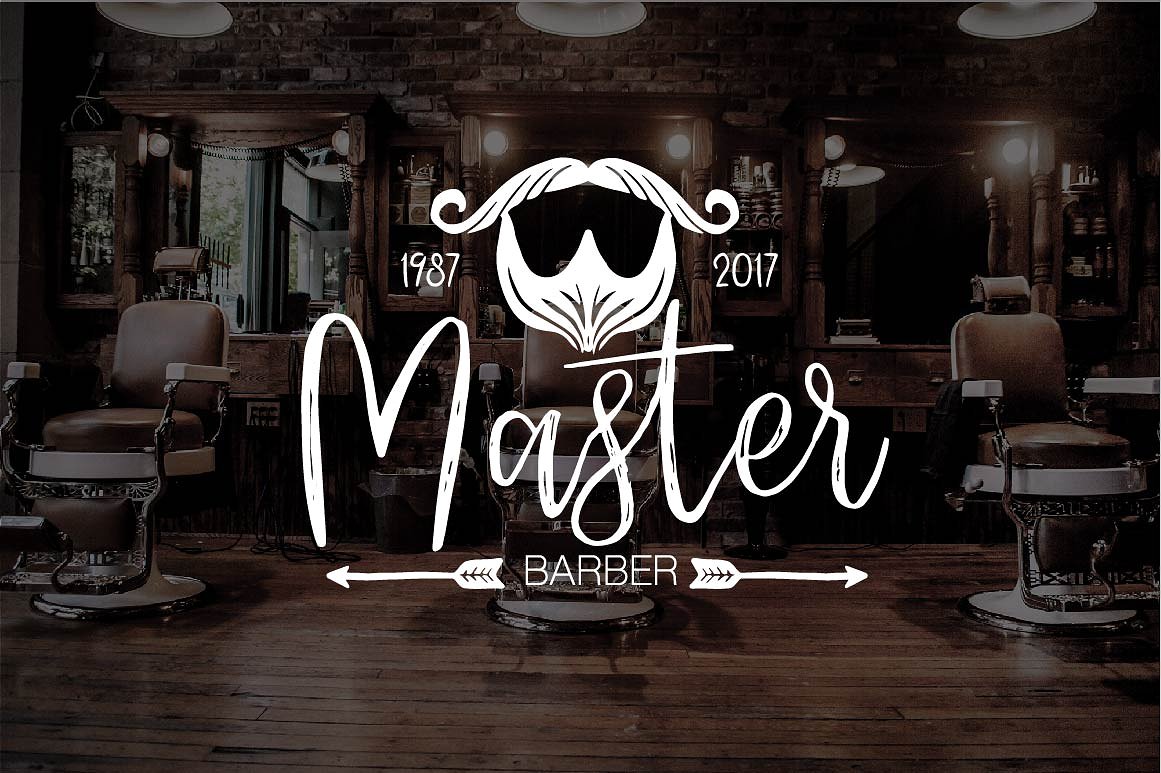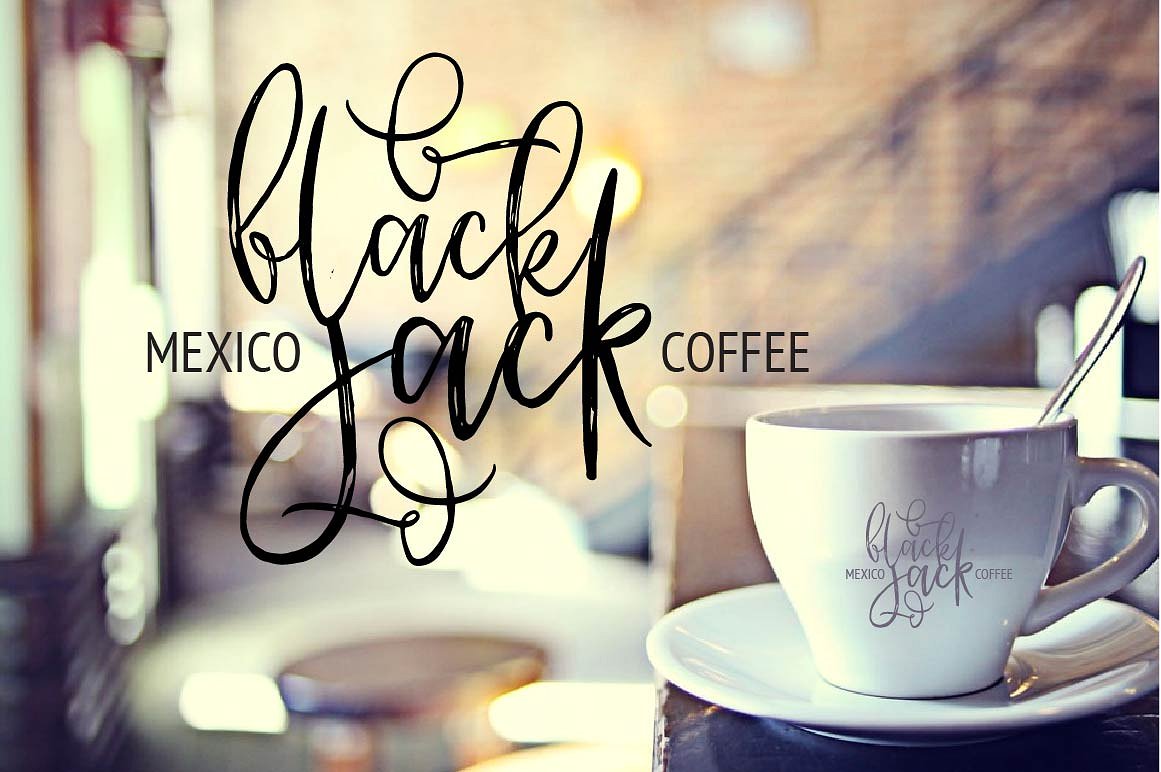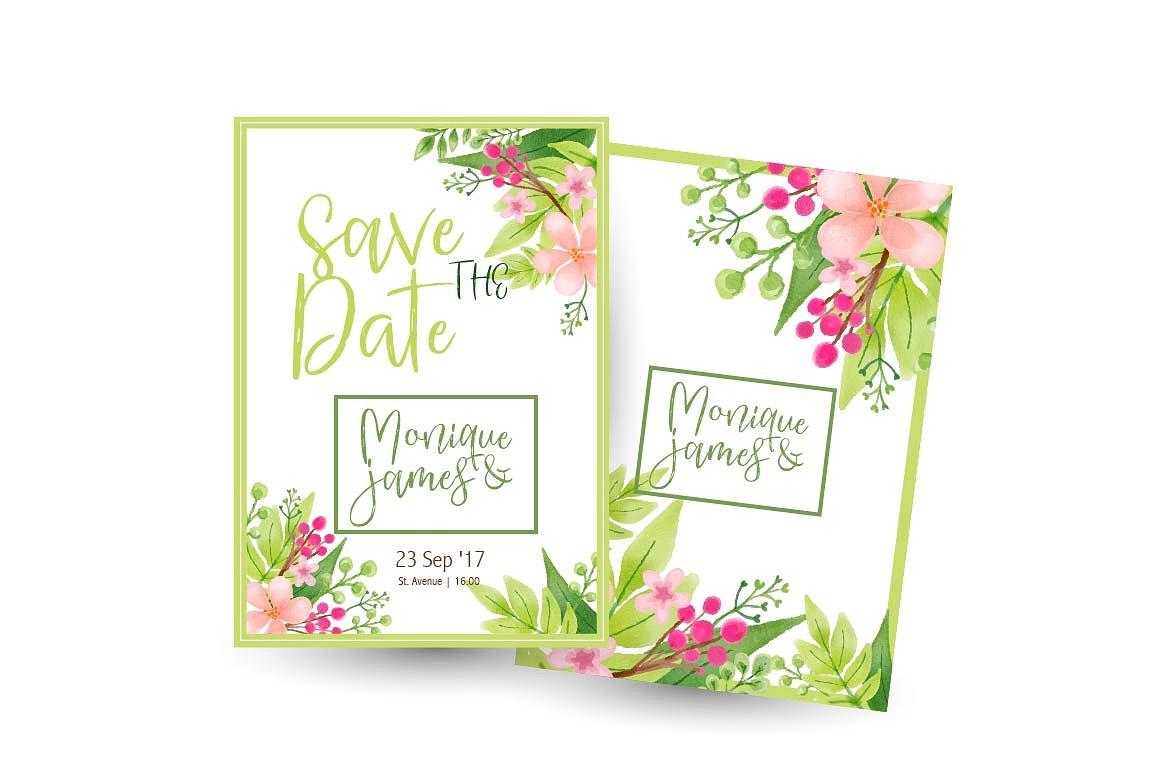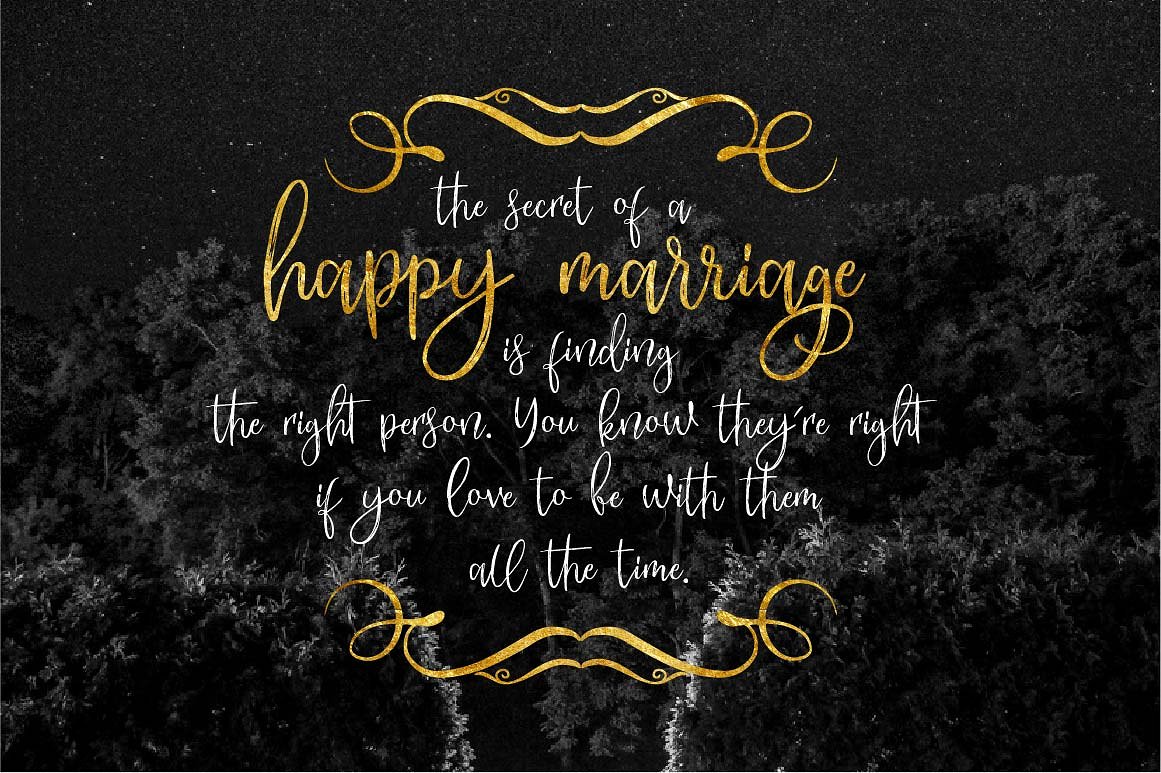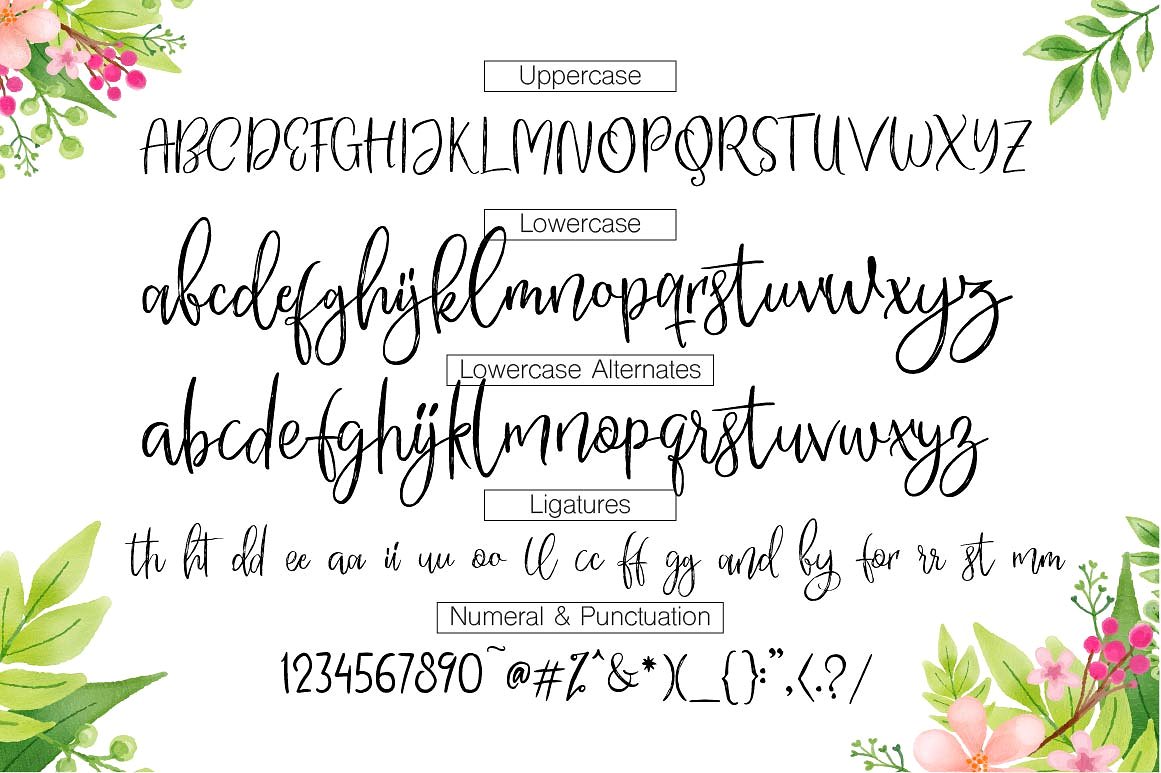
Rotterdam Street Font
About Rotterdam Street Font
Rotterdam Street is a stunning handwritten font which features tiny imperfections inside the letters.
It’s a delicate font that will give a personal touch to your designs.